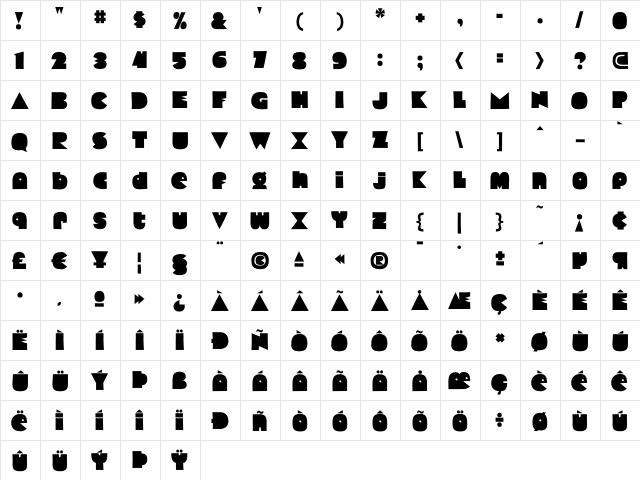
Cooter Regular
| Foundry | Dilworth Typographics Inc. |
| Designer | Silas Dilworth |
Design Context for Cooter Typeface
Cooter is a composed and adaptable typeface that performs quietly and consistently across a wide range of design contexts.
Pro Tip: Pair Cooter with a font of contrasting weight or personality to build a more expressive typographic hierarchy.